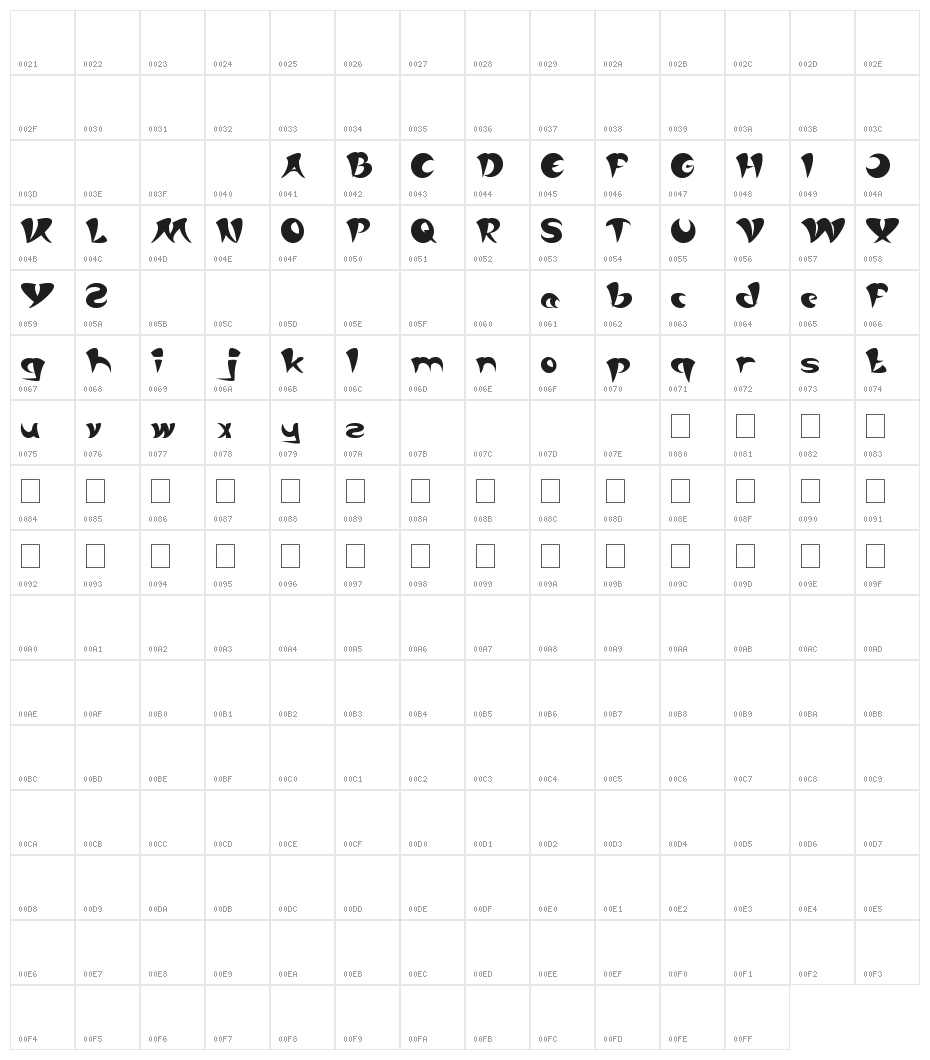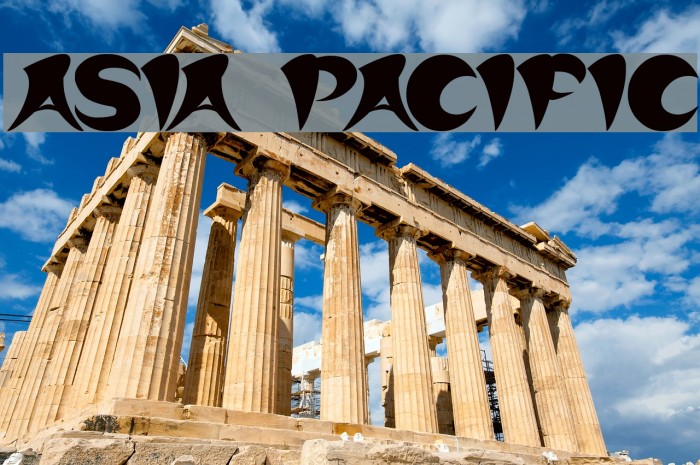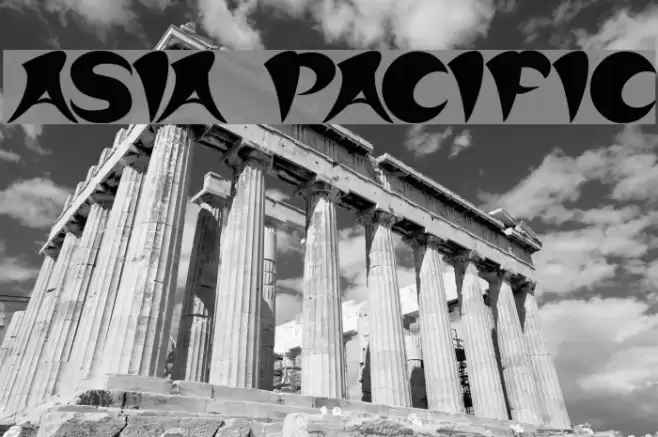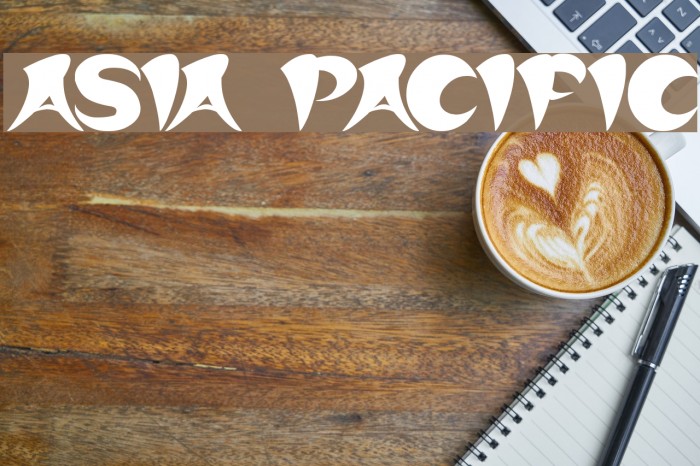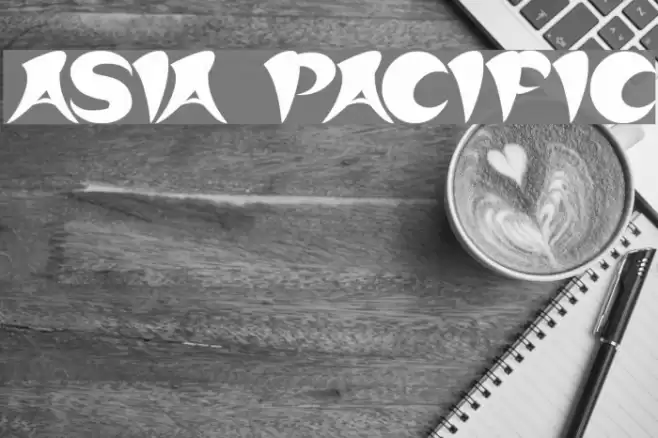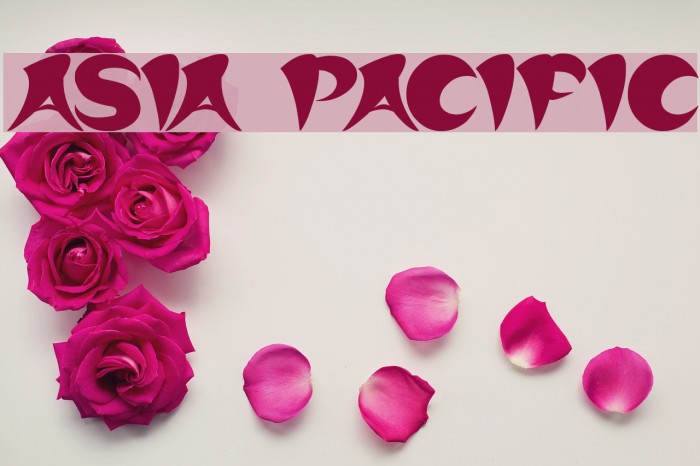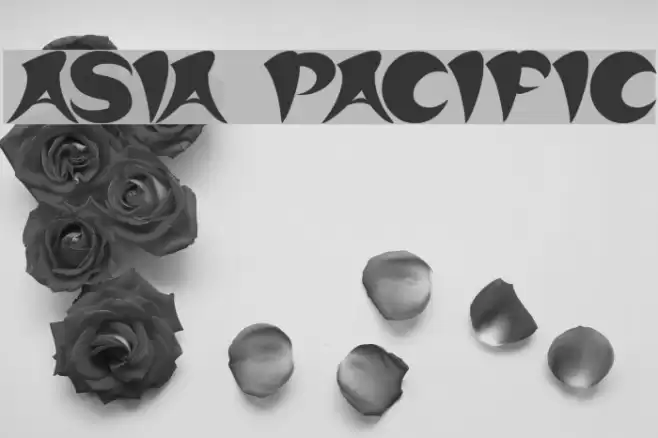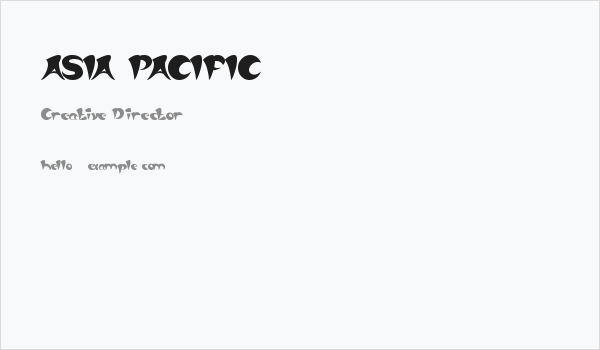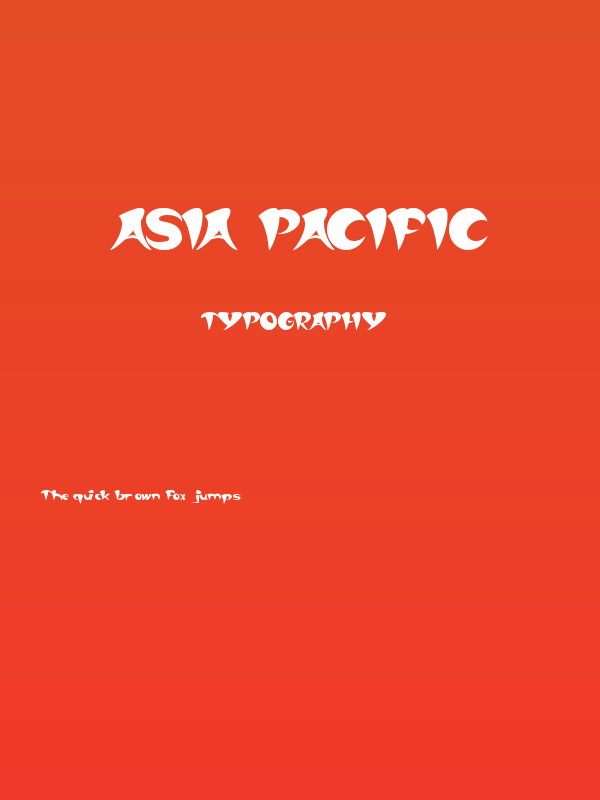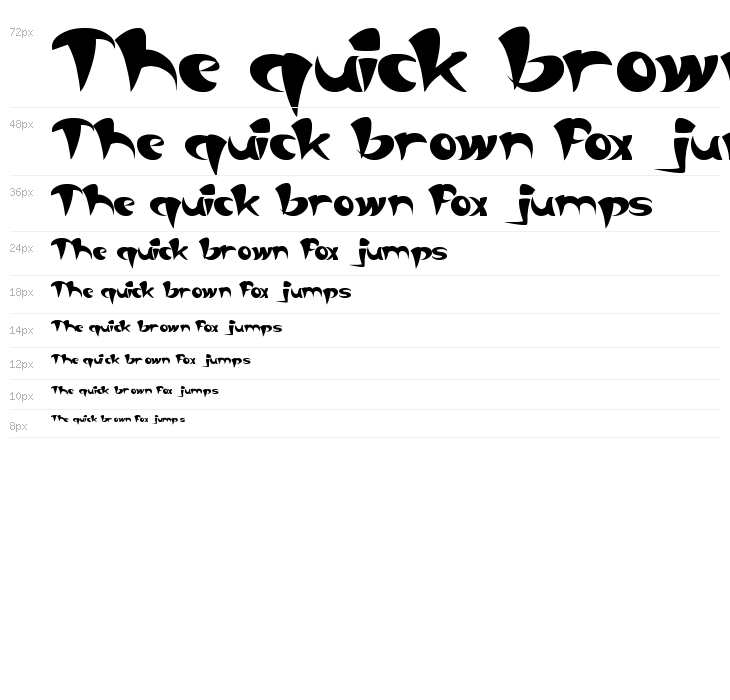
ASIA PACIFIC Font
ASIA PACIFIC Description
This font features a bold and dynamic style with sharp, angular edges and a unique flair that gives it a distinctly modern and artistic appearance. The characters are designed with a high level of contrast, where thick strokes are juxtaposed with thin, sharp points, creating a striking visual impact. The uppercase and lowercase letters maintain a consistent style, with the lowercase letters mirroring the boldness and angularity of the uppercase set. The numbers and special characters follow the same design principles, ensuring uniformity across all glyphs. This font's dramatic and eye-catching design makes it suitable for projects that require a strong visual statement.